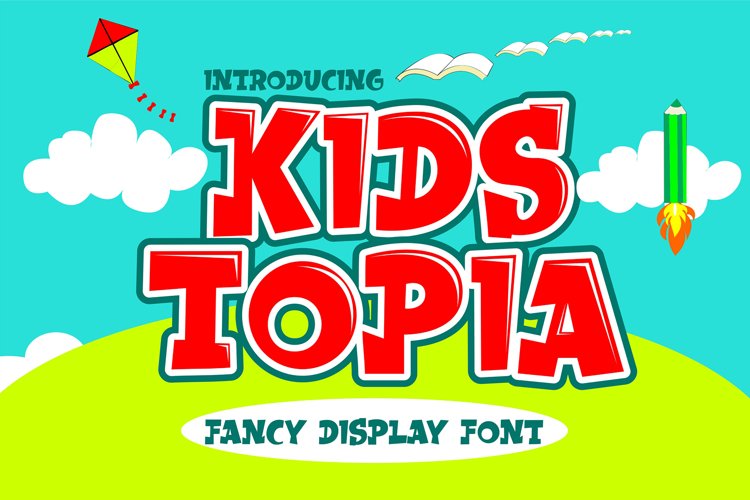
Kidstopia
Kids Topia
Say hello to KIDSTOPIA font
Made from a chic brush, it will make your design more beautiful, cute, fun and colorful.
- Character Set A-Z (All-caps)
- Numerals and Punctuation (OpenType Standard)
- Accents (Multilingual characters)